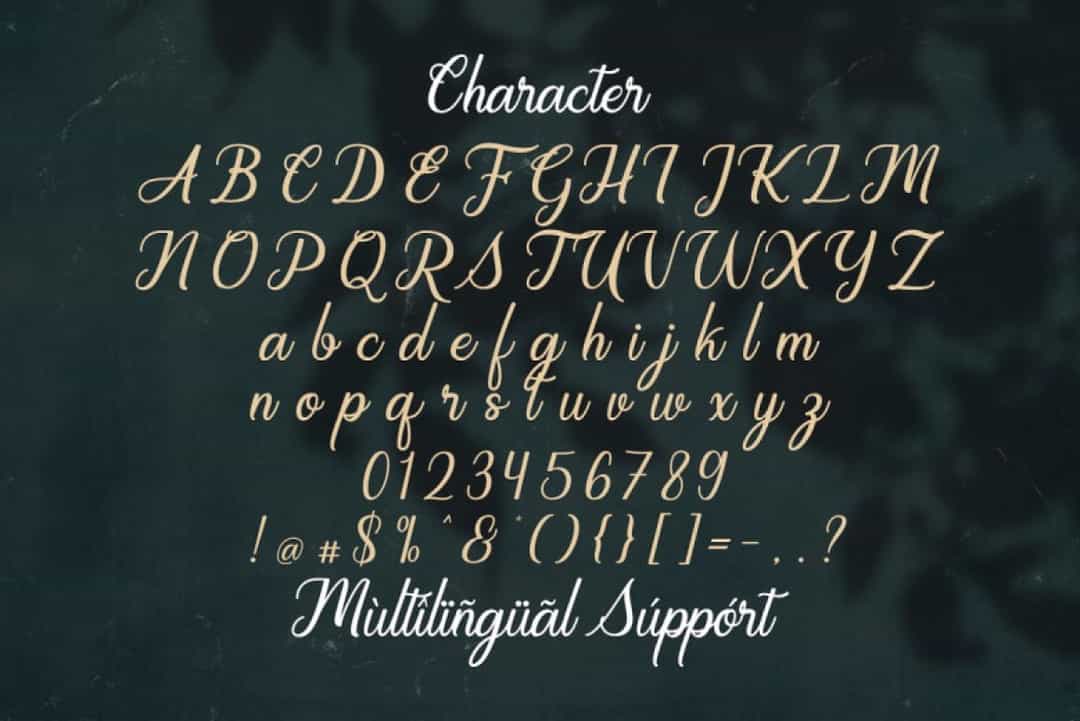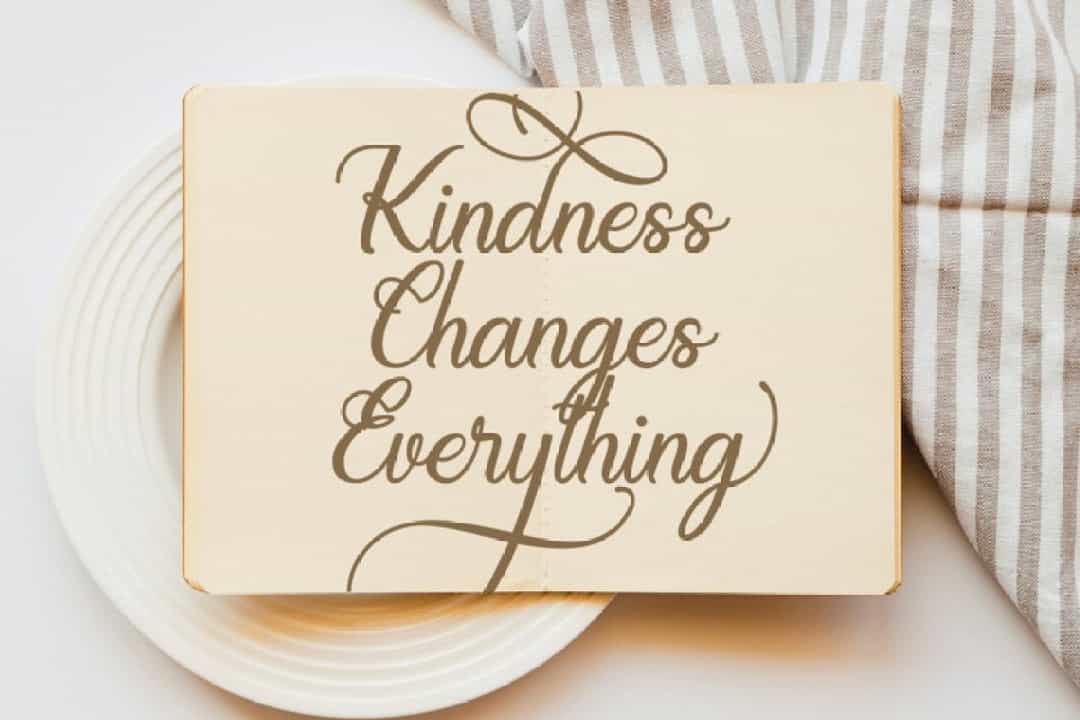
Regalhisa is an elegant blend of classical and modern calligraphy fonts. The inspiration comes from writing styles of Italian women as well as old manuscripts. This font is ideal for weddings covers for books, greeting cards logos and branding business cards, certificates and more and even for any design that needs to be traditional, formal or elegant.